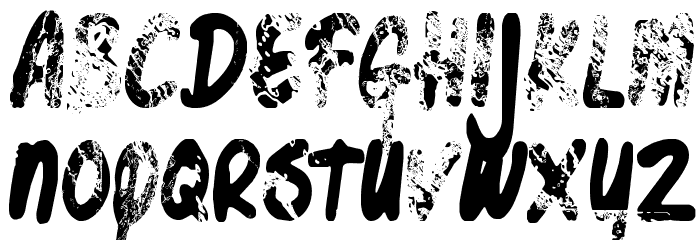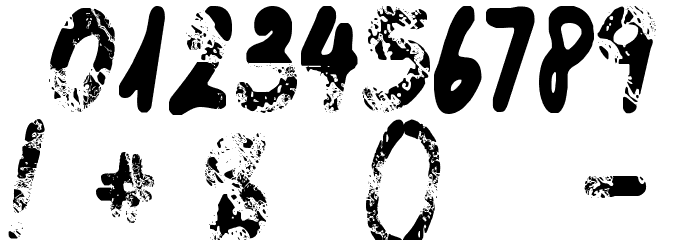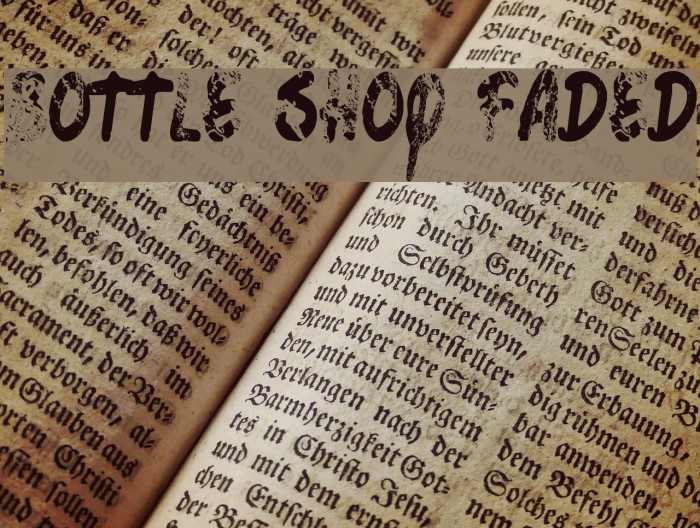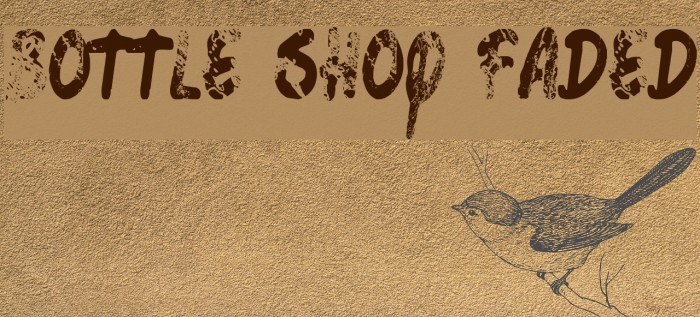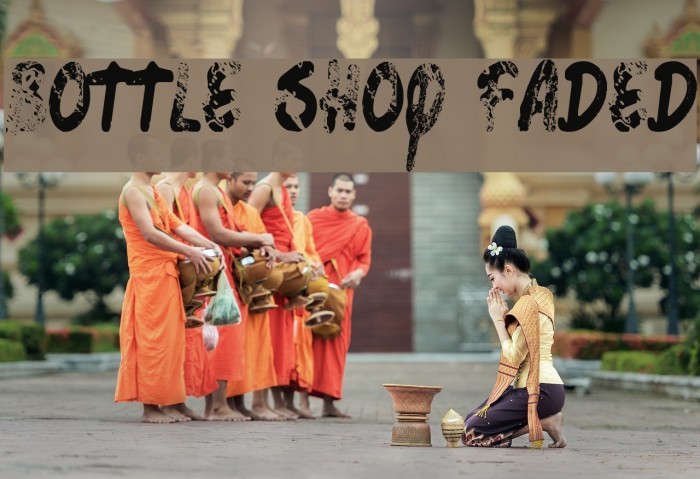
Bottle Shop Faded Font
This font features a distressed, weathered look, reminiscent of vintage signage or worn-out paint on an old shop facade. The characters are bold and have a rough texture, giving them a unique, grunge aesthetic. The uppercase and lowercase letters maintain a consistent style, with irregular edges and a hand-painted feel. The numbers and special characters follow the same design, ensuring uniformity across all glyphs. This font is ideal for projects that require a rustic or retro vibe, adding character and depth to any design.
A bold, distressed font with a vintage, grunge aesthetic.
- Font: Bottle Shop Faded
- Proposed Projects: Ideal for vintage-themed posters, album covers, branding for rustic businesses, or any design needing a retro touch.
- Overall Style: Vintage